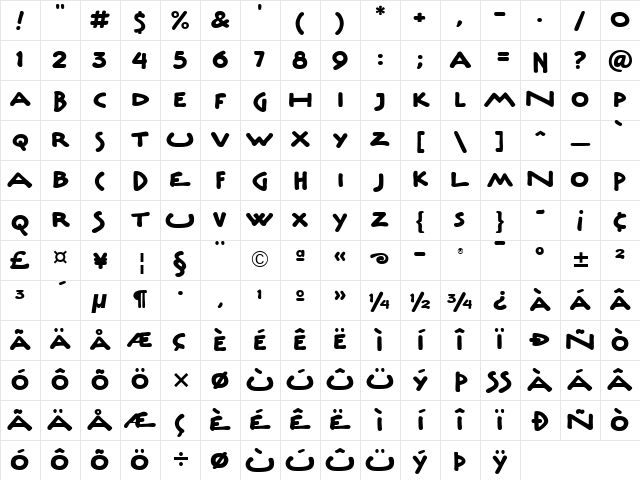
Complete Underscript ITC Bold glyph index. Displaying only characters natively supported by Underscript ITC Bold font.
Underscript ITC flows with the natural rhythm of handwritten lettering, making it ideal for designs that call for warmth and personal expression. Its bold stroke weight gives it real presence on the page.
Font Pairing: Combine Underscript ITC with a simple geometric sans for maximum contrast - the tension between flowing curves and clean structure is a classic typographic pairing.
Pro Tip: Use Underscript ITC for short runs of text - names, titles, or taglines. Extended body copy in script faces tires the eye quickly.